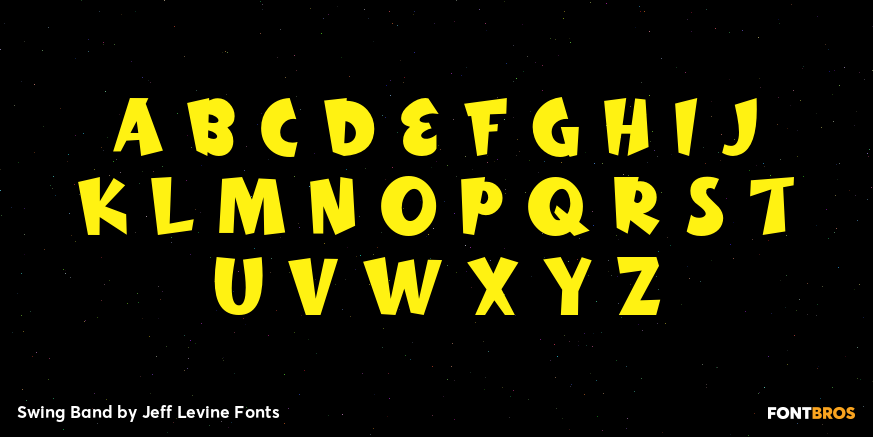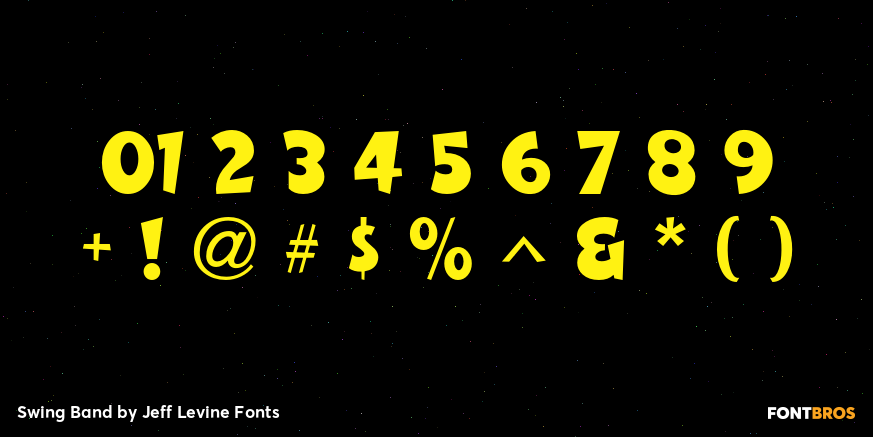
Swing Band
Swing Band JNL is a casual, playful type design inspired by the title lettering from "Hi-De-Ho", a 1930s all-black cast film starring legendary bandleader Cab Calloway.